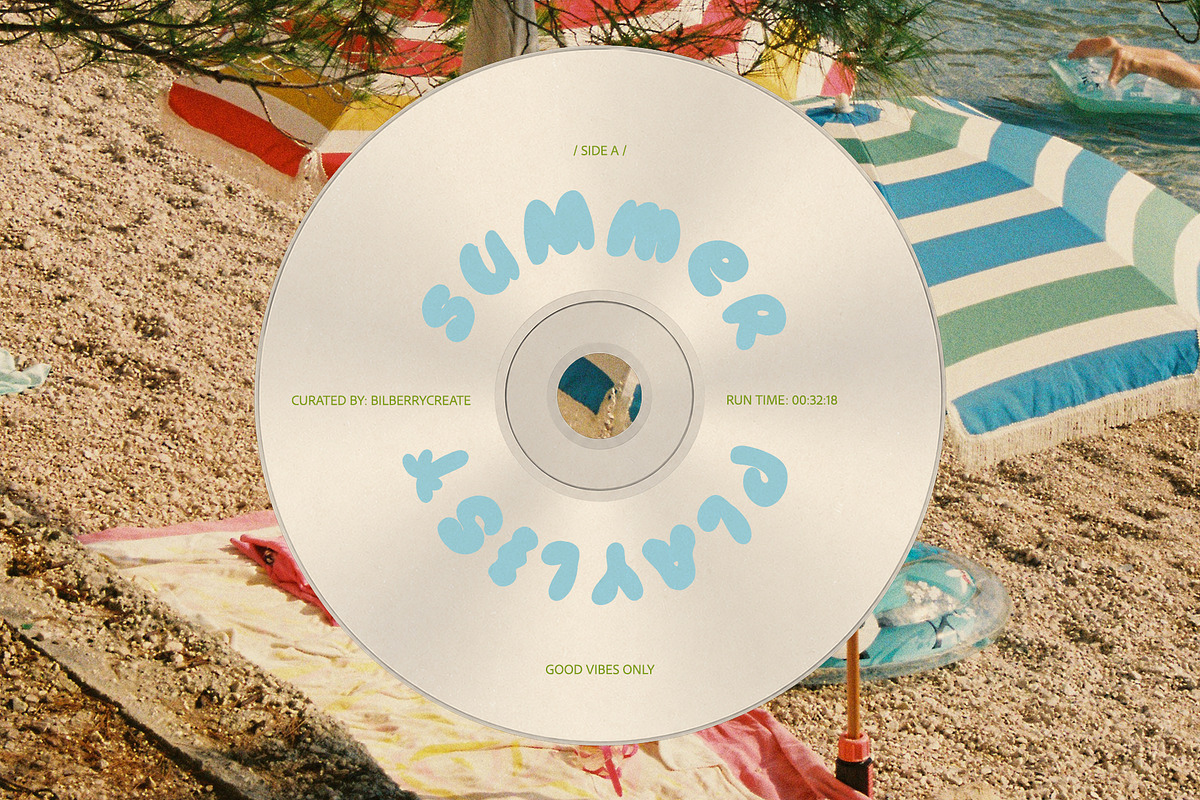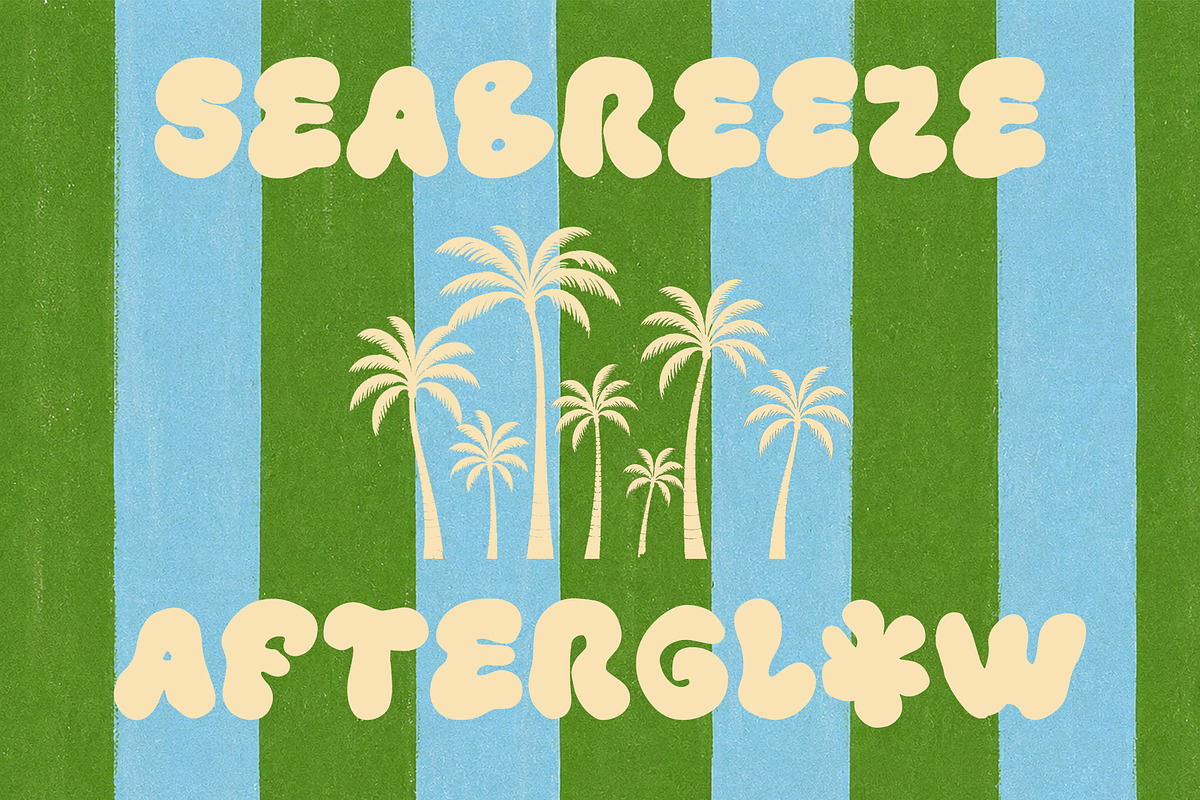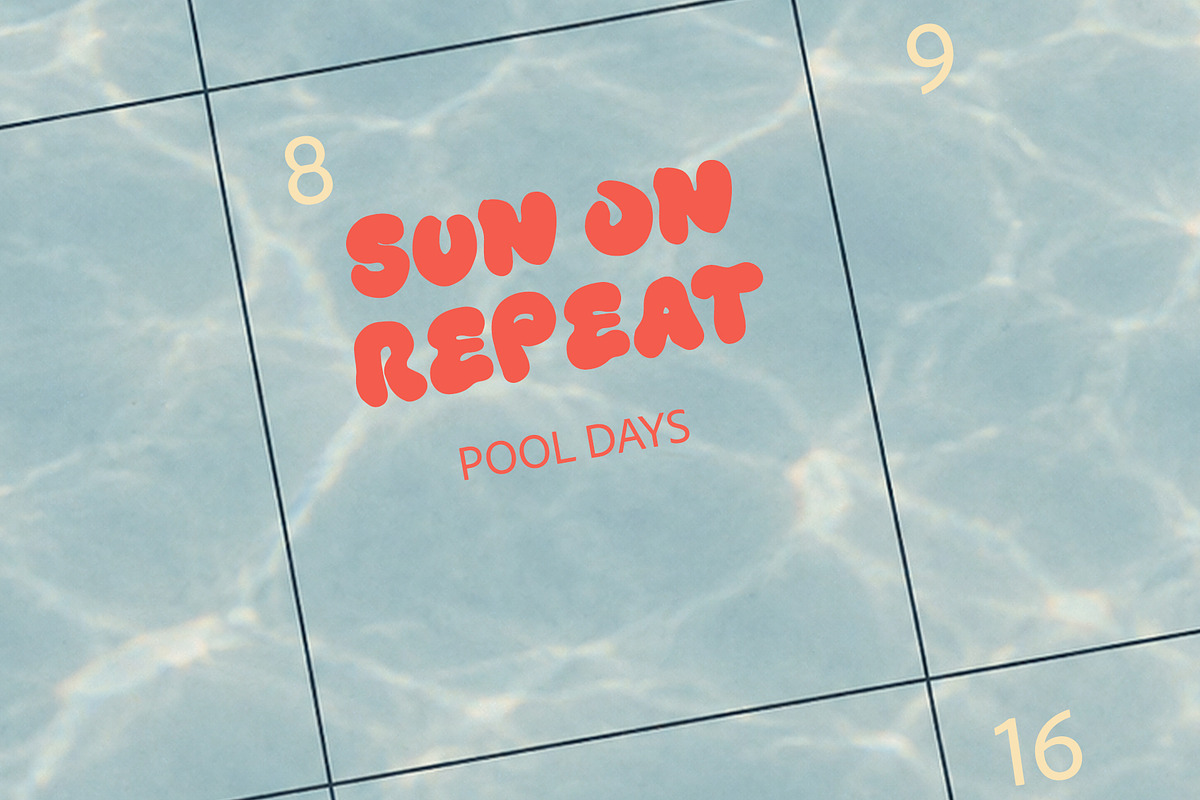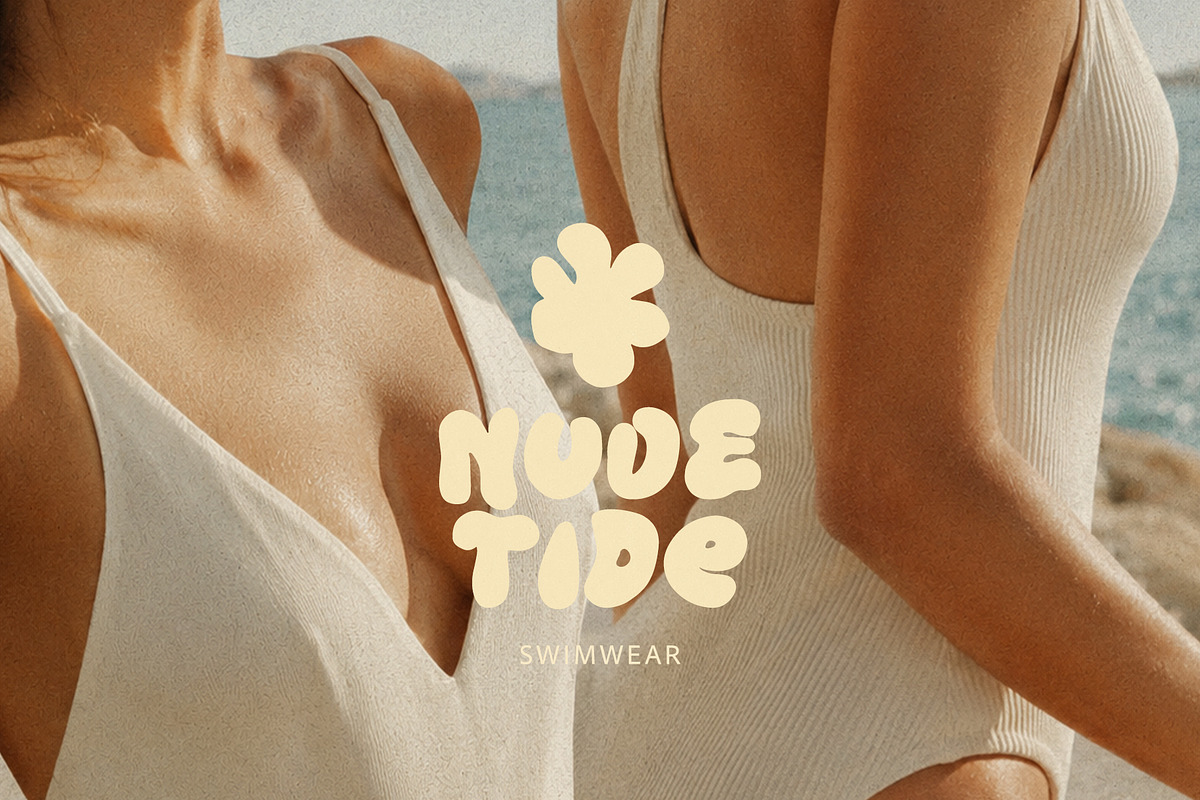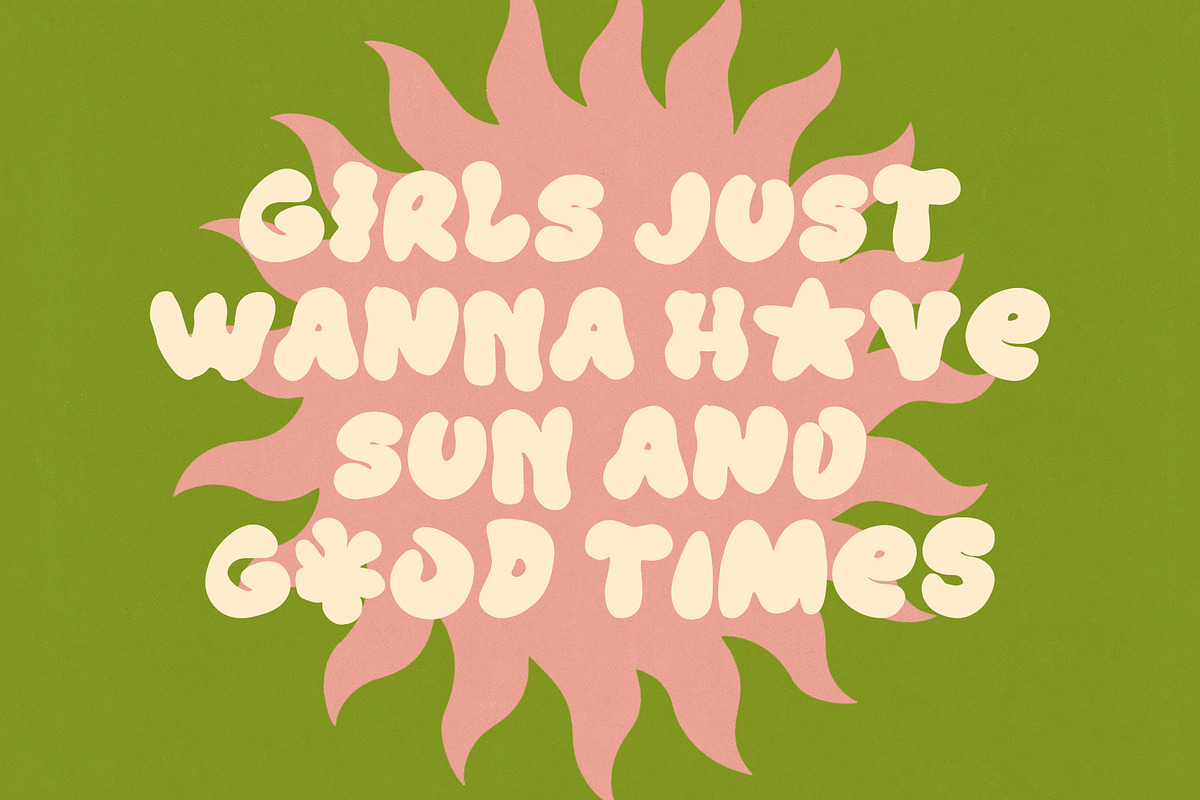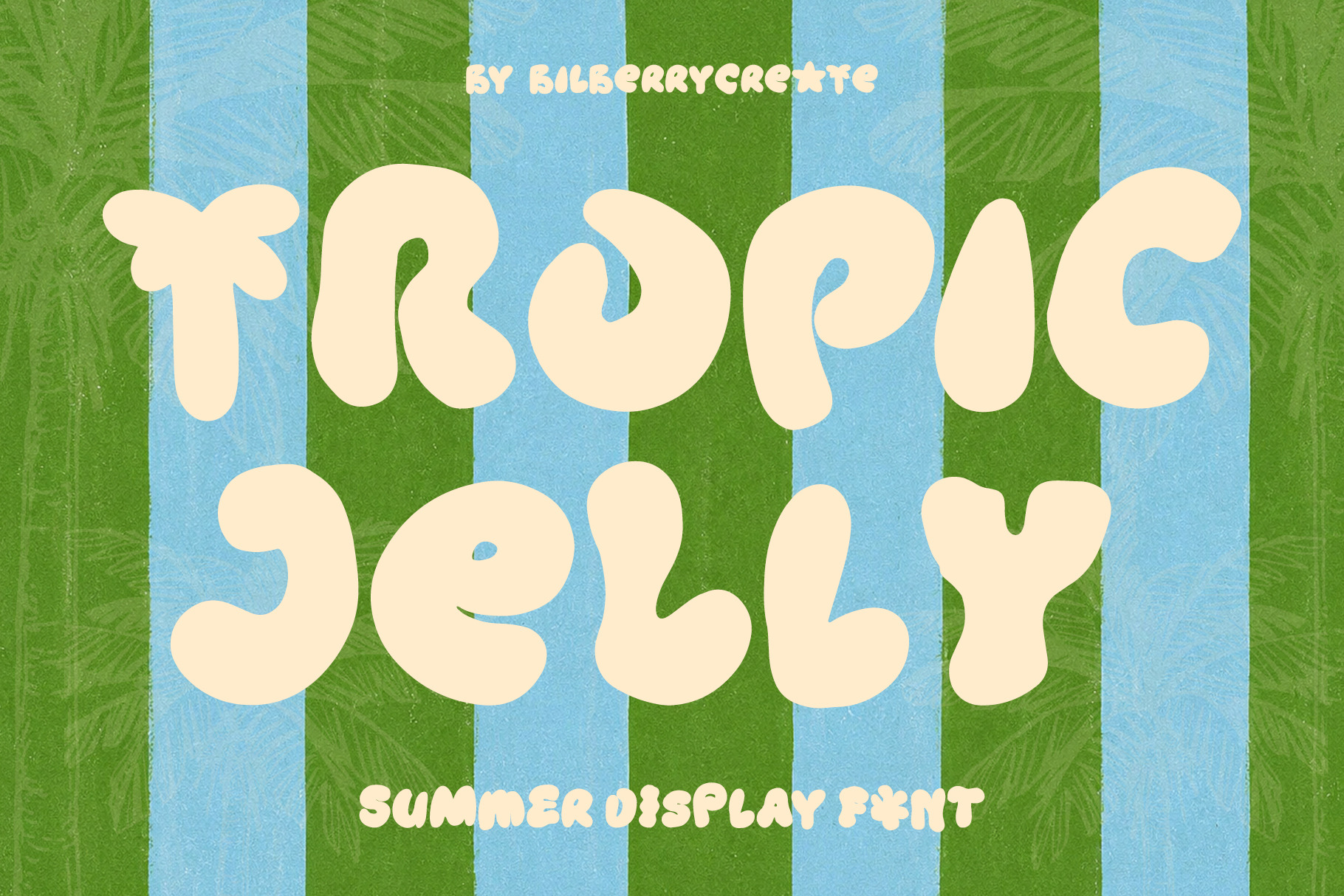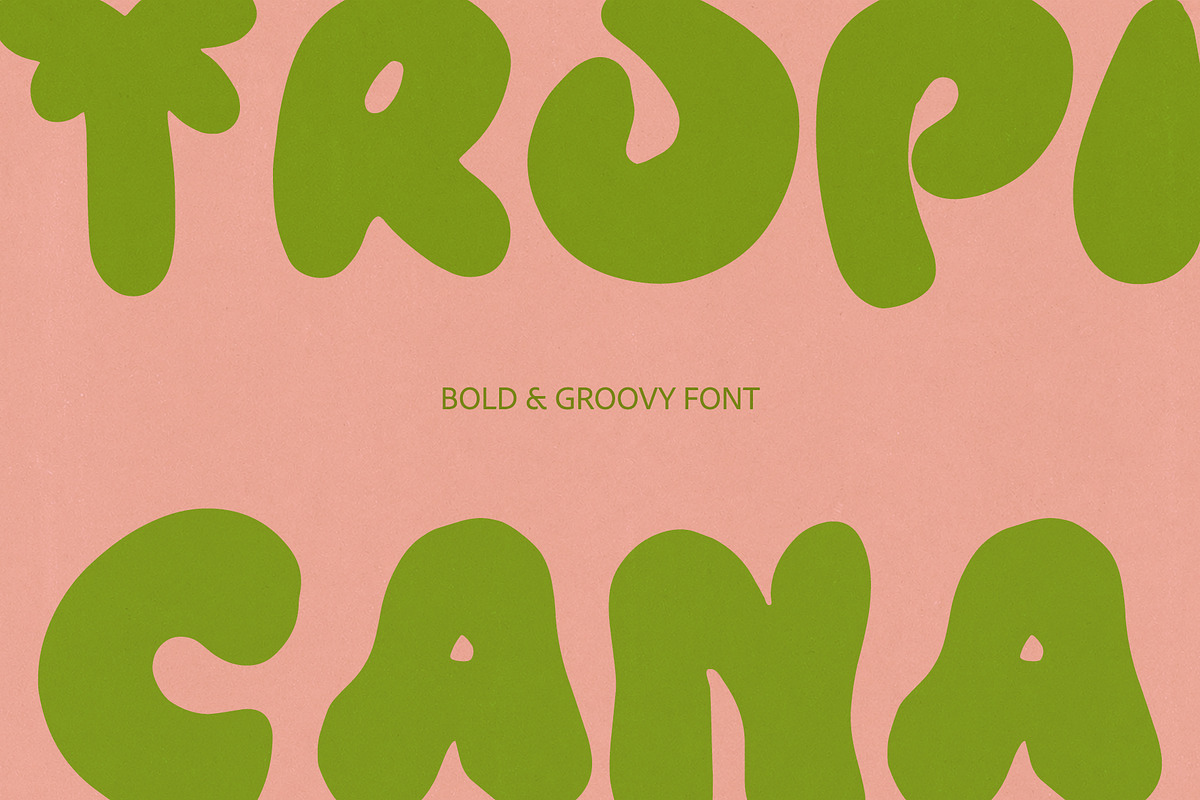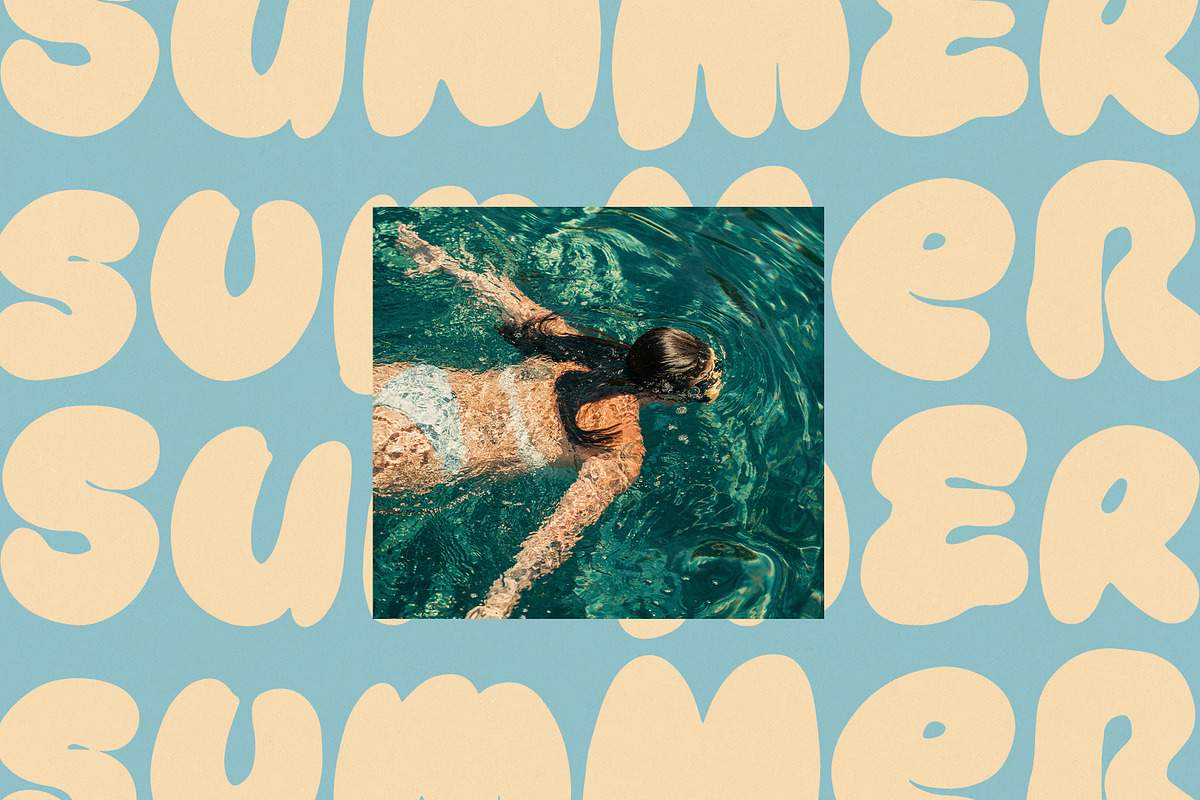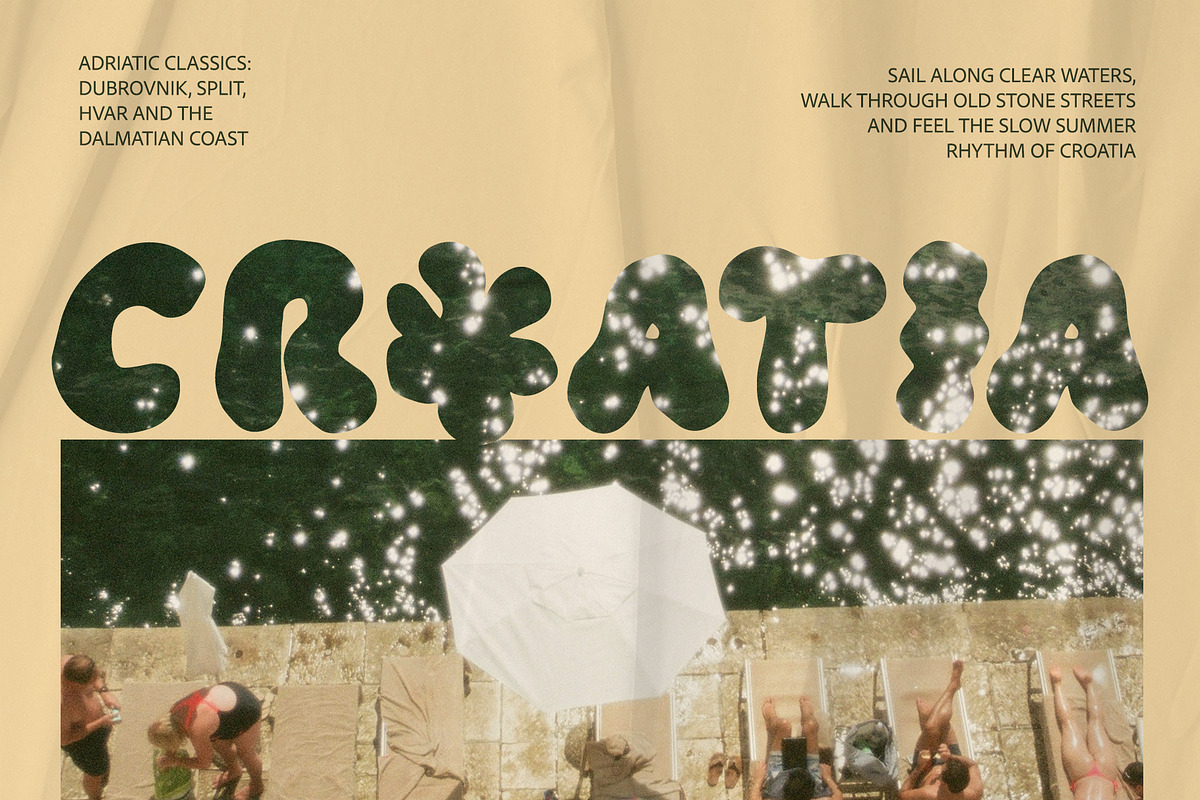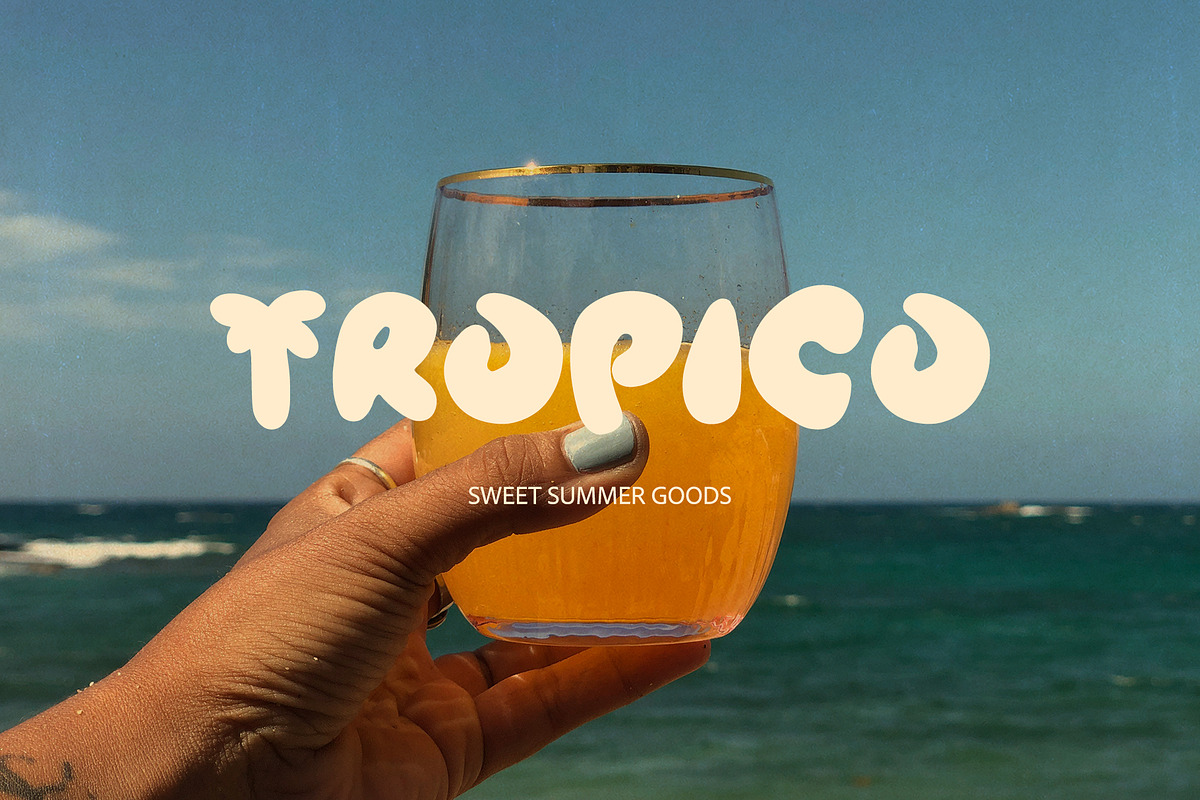
Tropic Jelly - Summer Display Font
Tropic Jelly is a soft, wobbly and playful display font with a warm tropical mood. Its chunky hand-drawn shapes feel juicy, relaxed and a little retro - like summer posters, beach snacks, pool parties and lazy vacation afternoons.
This font is made for bold titles, packaging, social media graphics, stickers, summer branding, kids’ designs, posters, merch, logos and anything that needs a fun, friendly, sun-soaked look.
Tropic Jelly works best in large sizes, where its organic curves and jelly-like shapes can really stand out. Pair it with a clean sans serif or a simple handwritten font to create bright, playful compositions.
Perfect for: summer posters, tropical branding, beach party flyers, packaging, Instagram graphics, stickers, T-shirts, kids’ products, greeting cards and fun display typography.